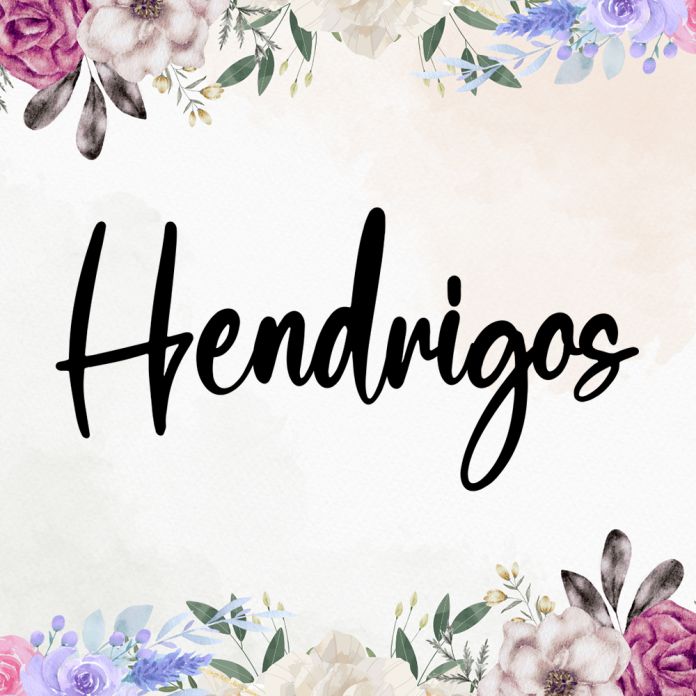
Hendrigos latest style letters are perfect for wall displays, wedding invitations, social media post logos, advertisements, product packaging, product designs, labels, photography, watermarks, invitations, stationery, and any project that requires handwritten taste.